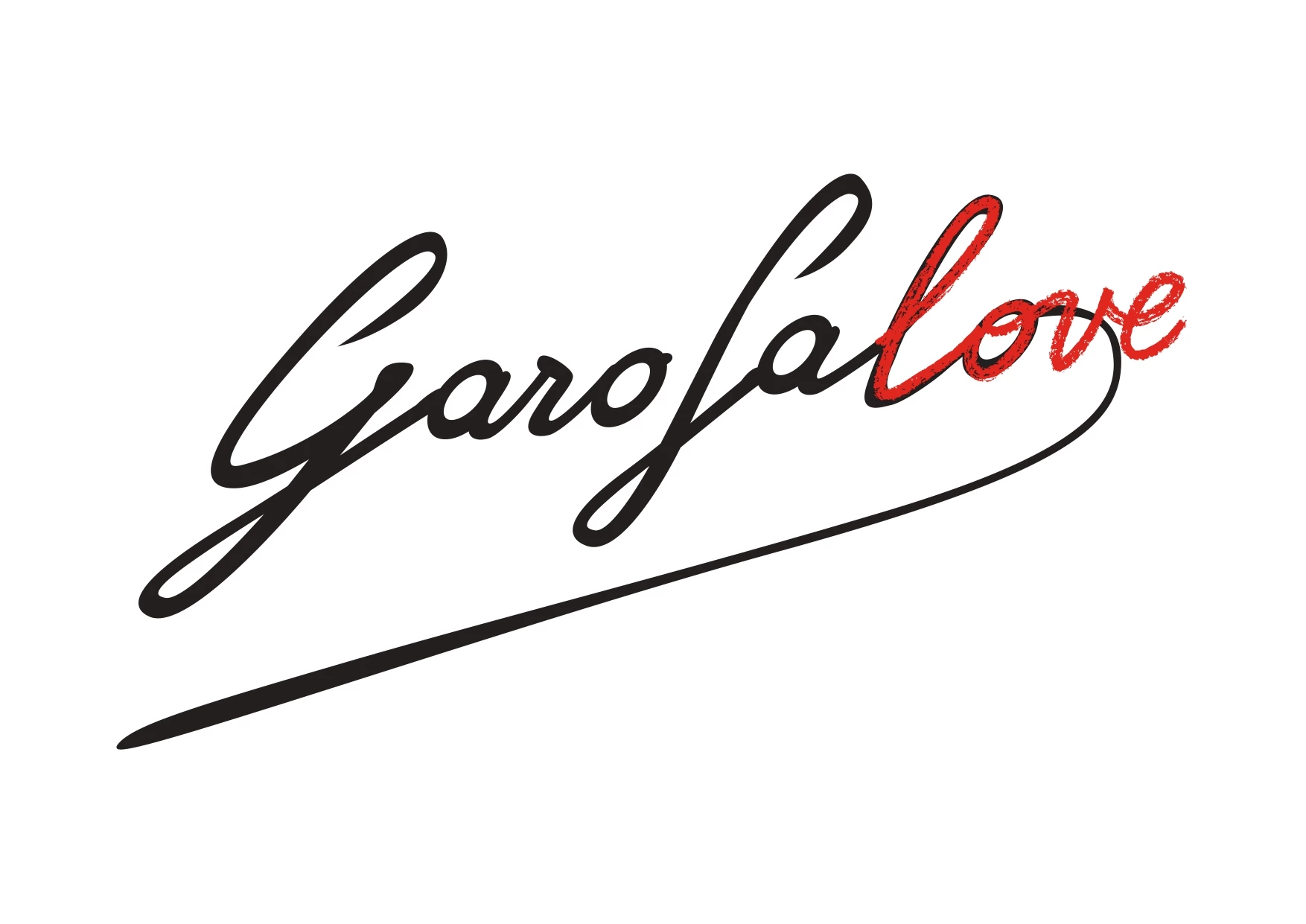
Hi everyone, does anyone happen to know the name of the font used in this logo?
I doubt the logo was created using a stock typeface; it was likely hand-drawn.
Maybe.